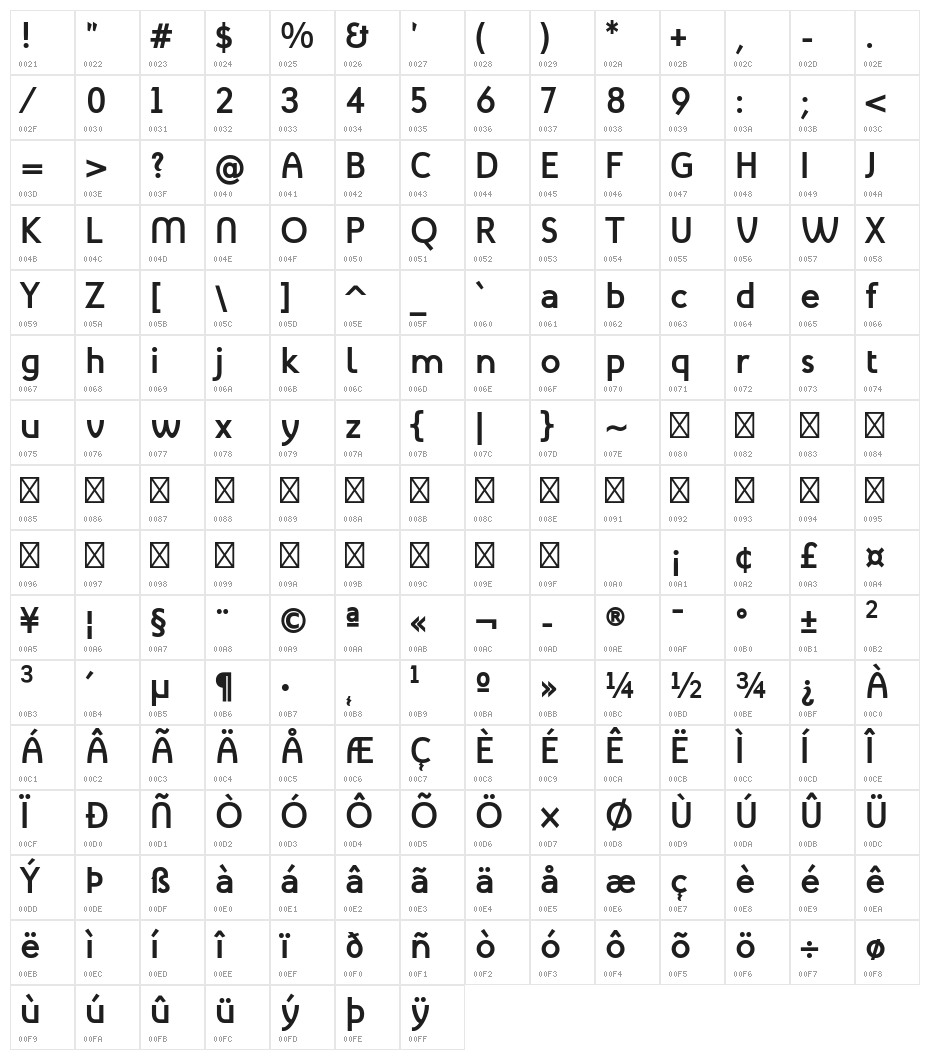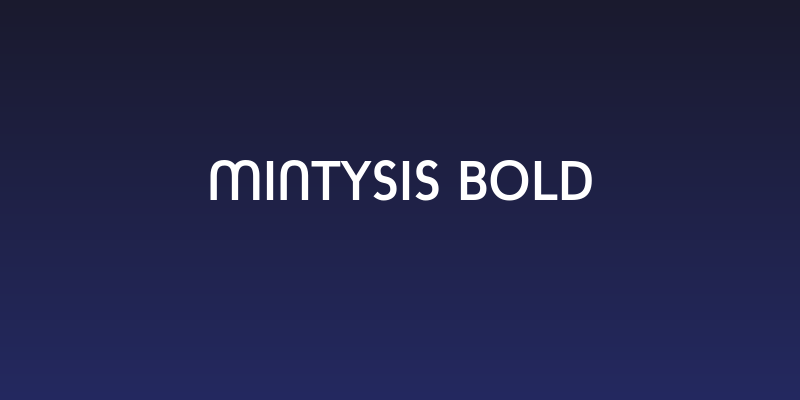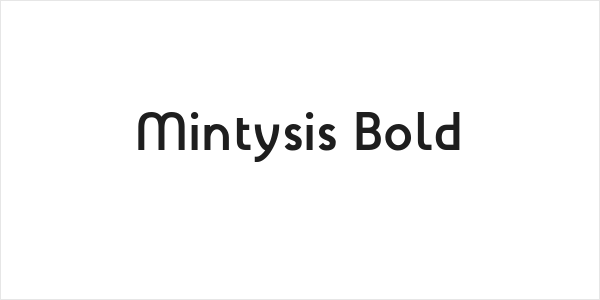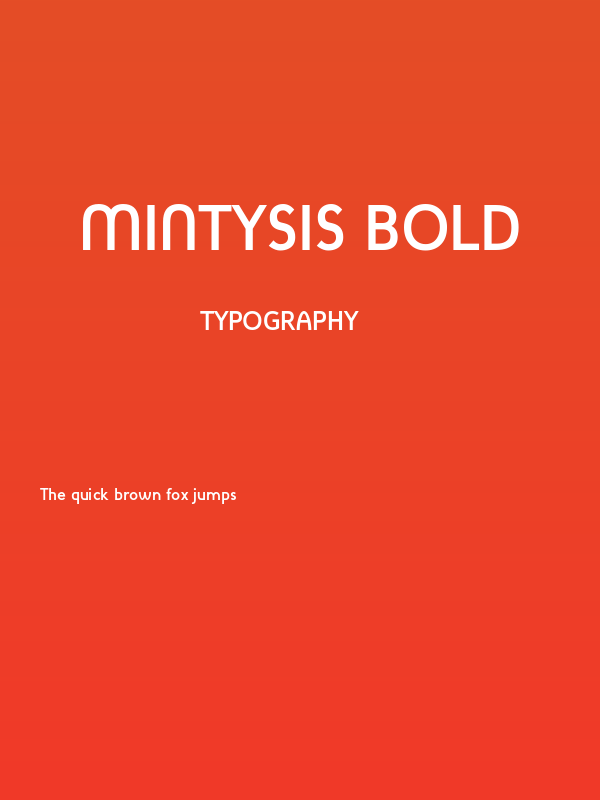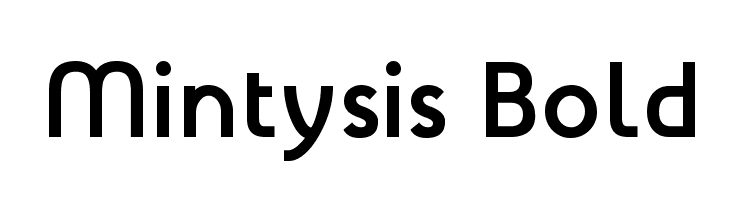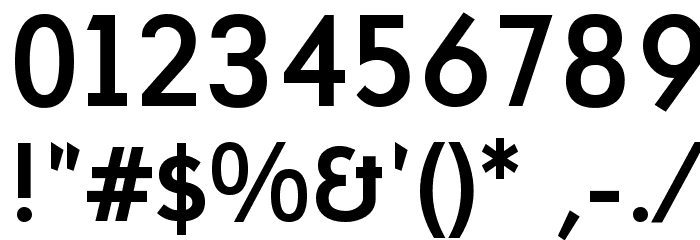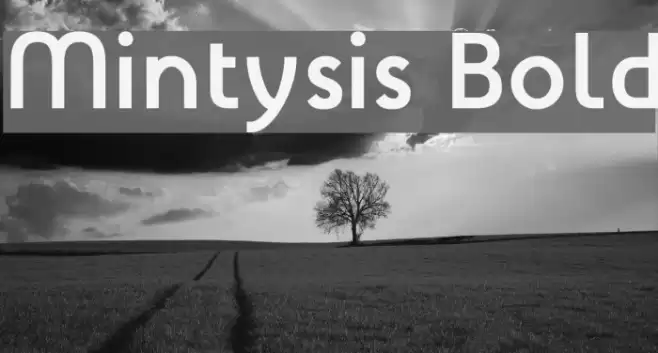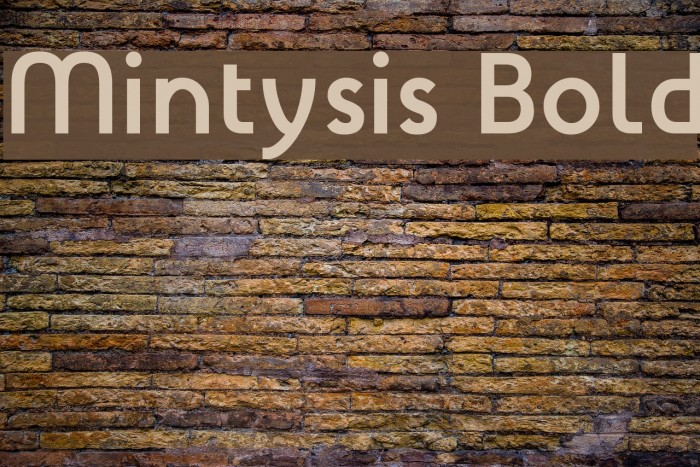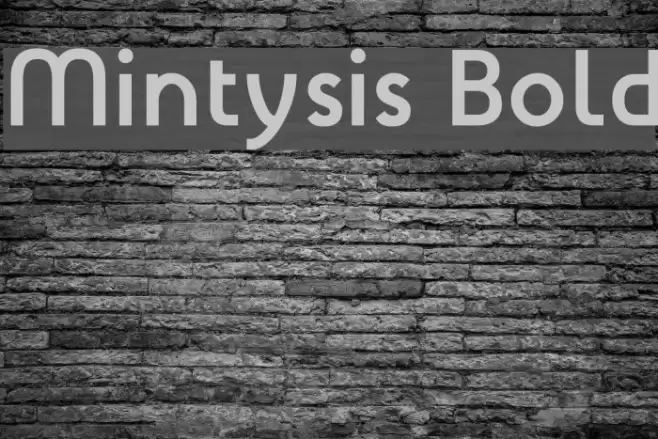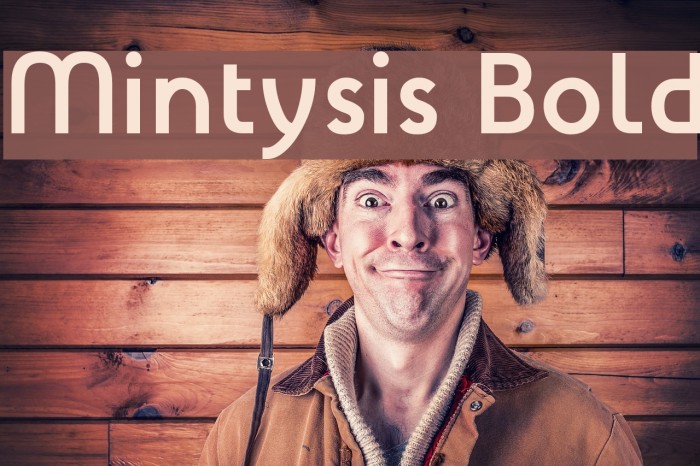
Mintysis Bold Font
Mintysis Bold Description
This font features a bold and modern sans-serif design with clean lines and a geometric structure. The characters are evenly spaced, providing a balanced and harmonious appearance. The uppercase letters are slightly taller than average, giving a commanding presence, while the lowercase letters maintain a consistent height. The numerals are clear and legible, making them suitable for various applications. Special characters are well-defined, adding versatility to the font's usage. The overall style is contemporary, making it ideal for digital and print media.
| Use Case | Headlines, Logos, Digital media |
| Proposed Projects | Ideal for branding, advertising, digital media, and print design projects. |